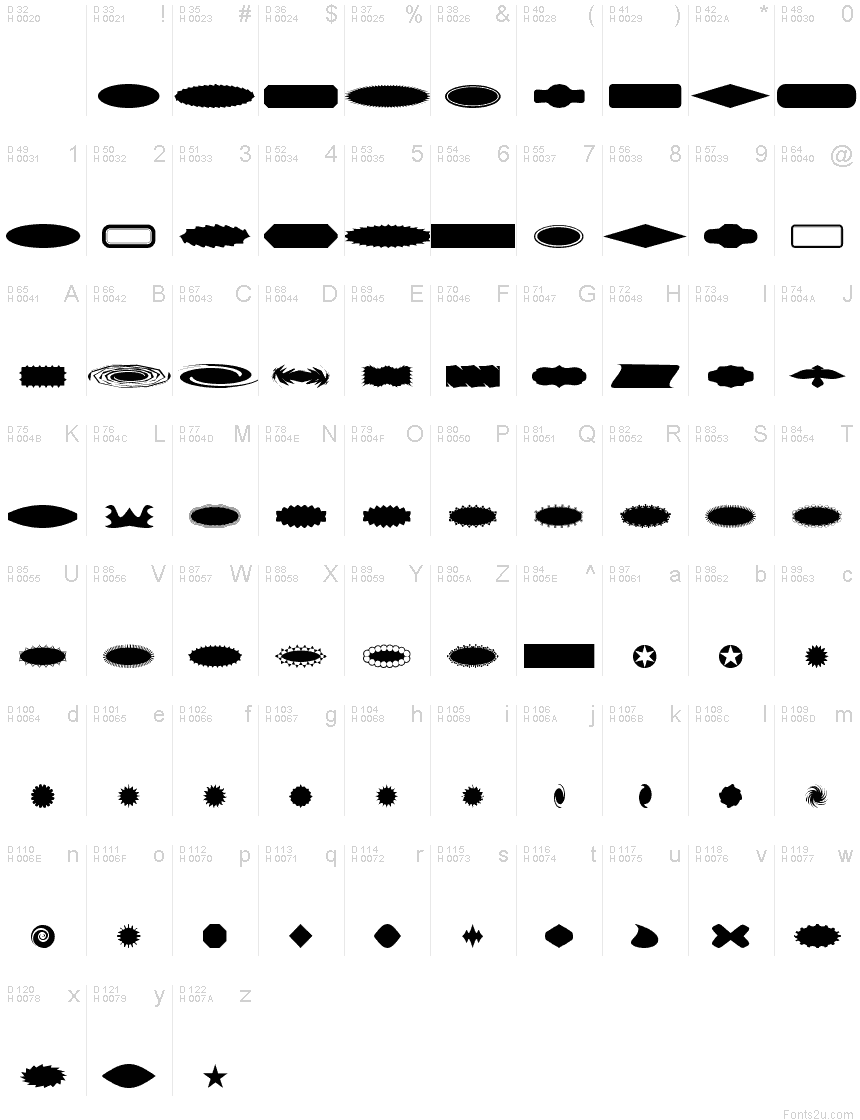
ButtonButton AOE
ButtonButton AOE font by Astigmatic One Eye s a free decorative dingbat typeface packed with bold, ready‑made shapes. Chunky stars, spiky bursts, solid octagons, and hypnotic spirals drop in like graphic stickers, saving you from hunting down icons or drawing badges from scratch. The silhouettes are crisp and inky, so they hold up whether you use them tiny as bullets or blown up as graphic anchors.
Using ButtonButton AOE, you can quickly build attention-grabbing buttons, sale badges, party invitations, zines, stickers, and playful social media graphics. This free font shines when you repeat a single symbol as a pattern or mix several shapes to frame a headline. For a clean look, pair it with a simple sans serif and let the dingbats run larger than the text so they feel like bold graphic elements, not just decorations.